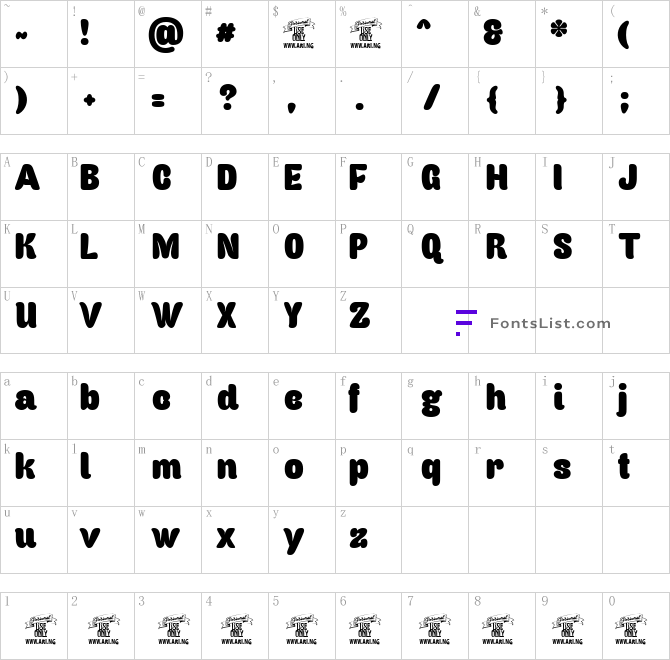
- Font Name:Caprica Sans Personal Use
Caprica-Sans-Personal-Use.ttf is a very beautiful artistic font, Caprica-Sans-Personal-Use.ttf is widely used in the design and printing of various books and pictures,Caprica-Sans-Personal-Use.ttf has a strong visual impact,Caprica-Sans-Personal-Use.ttf is a commonly used font in newspapers, magazines and books, and is used in posters, e-commerce Poster design, store design, logo design, font design and other fields.Caprica-Sans-Personal-Use.